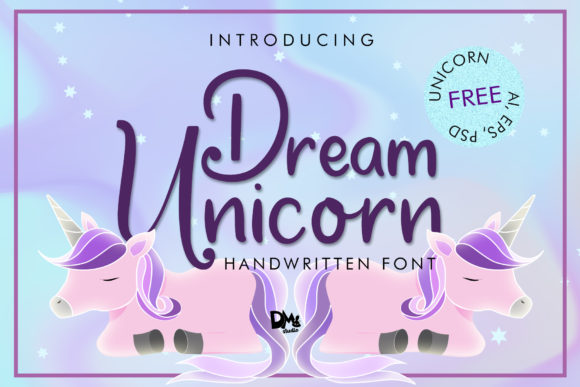
Step into a world of enchantment and magic with Dream Unicorn Font, a captivating script font family that will add a touch of whimsy and charm to your creative projects. Embark on a fantastical journey with this lovely, cute, and sweet handwritten font, designed to transport you to a realm of dreams and unicorns.
Dive into a world of endless possibilities as you explore the creative horizons that await. Craft enchanting invitations that capture the essence of a fairy tale, design eye-catching logos that exude playfulness, or create heartwarming greeting cards that spread joy and cheer. Let your imagination soar as you unleash the magic of Dream Unicorn Font in your digital designs.
With Dream Unicorn Font, you'll discover a treasure trove of beautifully crafted characters that dance harmoniously on the digital canvas. Each letter, meticulously designed with a touch of elegance and charm, comes alive to tell a story, inviting you to weave your own enchanting narratives. Experience the magic of seamless letter connections and graceful strokes that flow effortlessly, adding a touch of sophistication to your creative endeavors.
Make your mark with Dream Unicorn Font, a font that breathes life into your creations, igniting the flames of creativity within you. Write enchanting poems that captivate hearts, design captivating social media graphics that spark engagement, or create stunning website headers that leave a lasting impression. Let the magic of Dream Unicorn Font infuse your digital presence with a touch of enchantment and wonder.
Enchant your audience with Dream Unicorn Font, a font that speaks to the child within us all. Awaken their imagination and transport them to a world where dreams come true. Experience the joy of creating heartfelt birthday cards that touch the soul, design enchanting posters that spark wonder, or create personalized gifts that bring smiles to faces. With Dream Unicorn Font, you'll sprinkle a touch of magic into every project you undertake.
Unleash the creative unicorn within you and embark on a journey of endless possibilities with Dream Unicorn Font. Let your imagination run wild as you craft enchanting stories, design captivating visuals, and create one-of-a-kind projects that leave a lasting impression. Experience the magic of Dream Unicorn Font today and let your creativity soar to new heights.
Combine this amazing typeface with the extra Unicorn designs to create one-of-a-kind crafts projects.